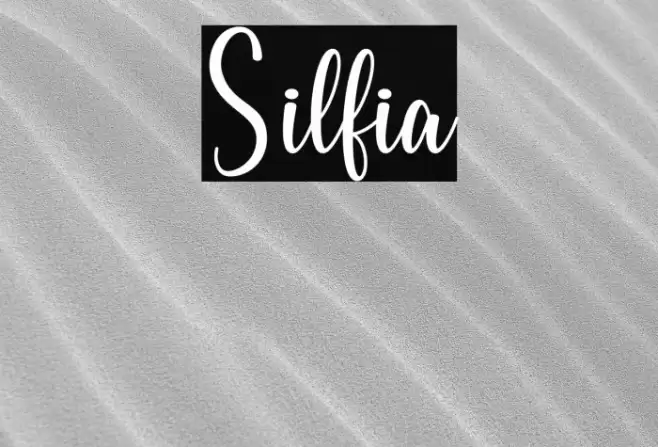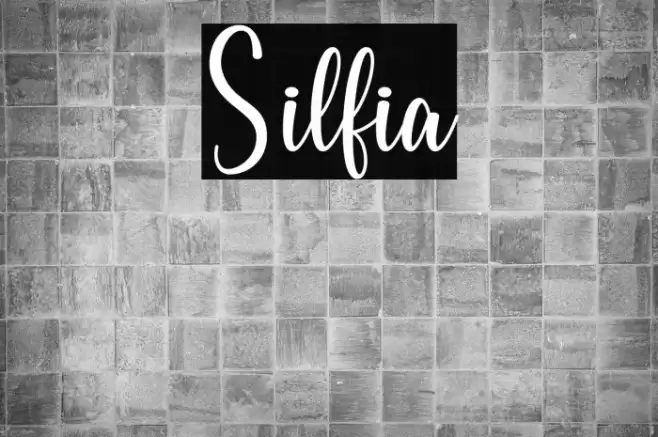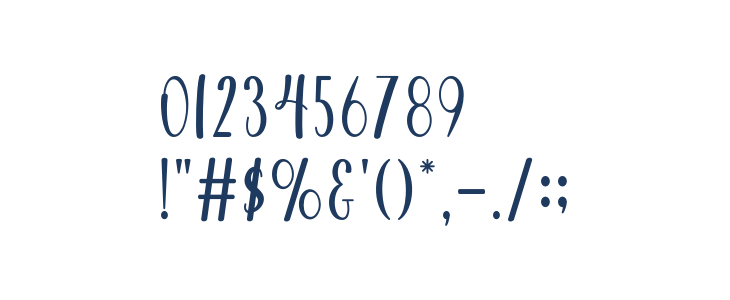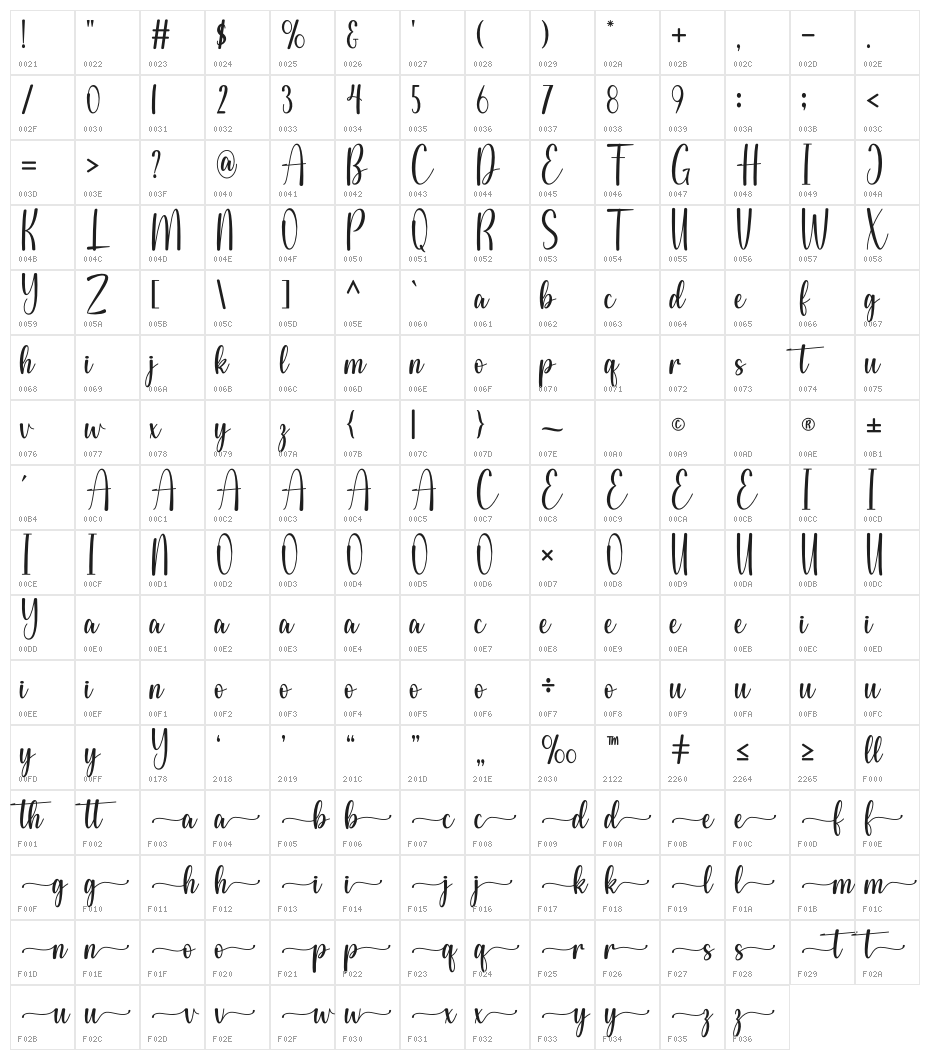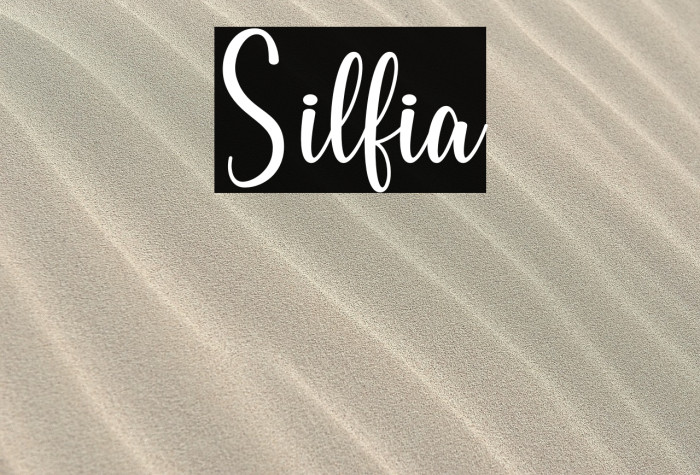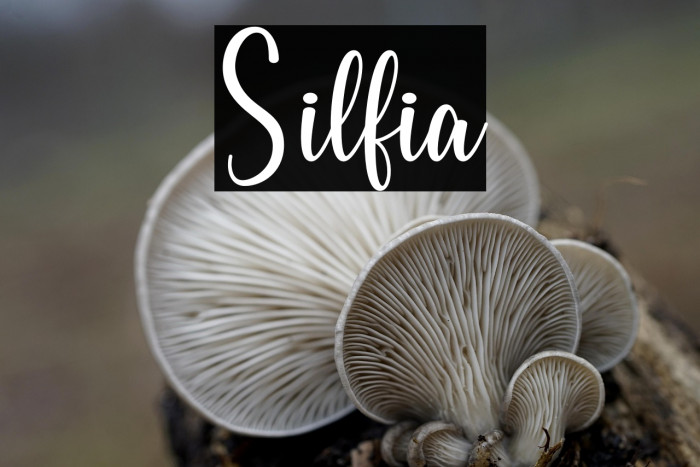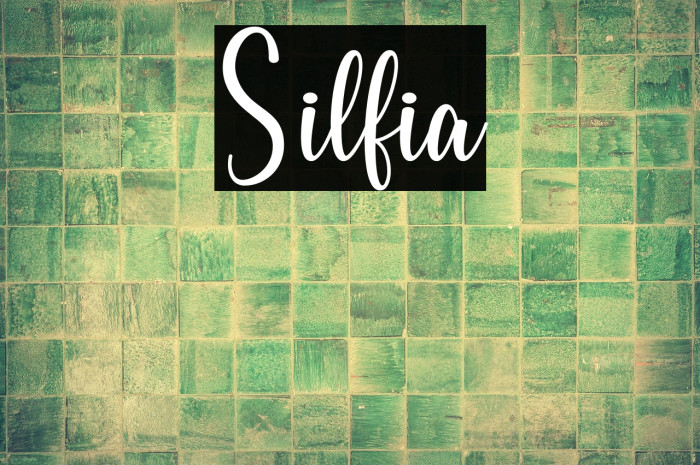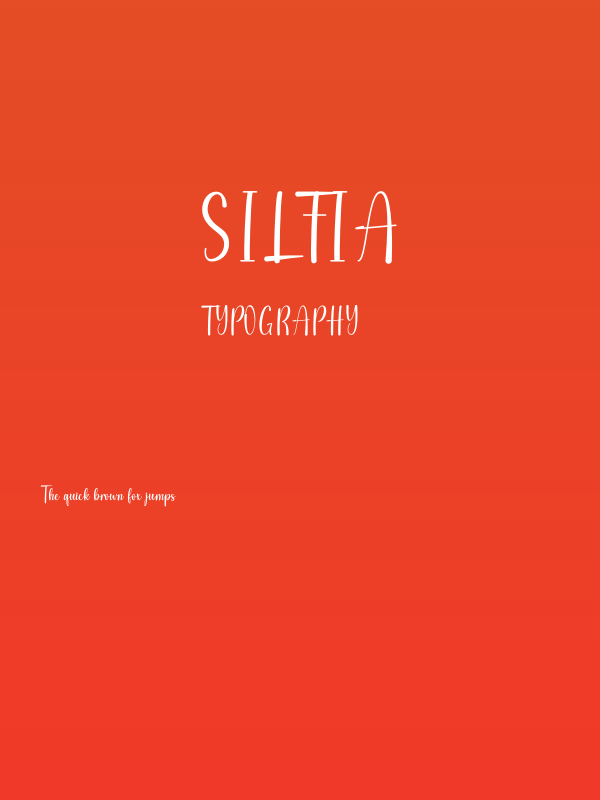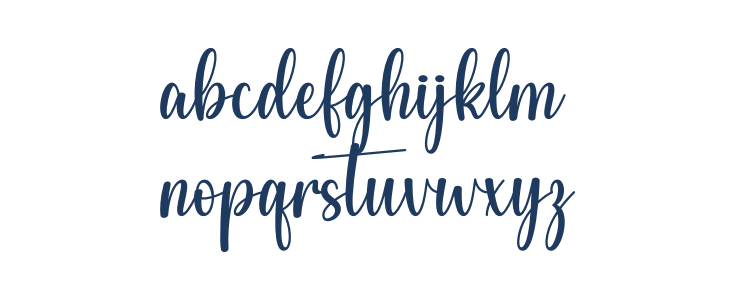
Silfia Font
Silfia Description
This font features a playful and modern handwritten style with a casual elegance. The uppercase letters are tall and slender, with a slight slant that adds a dynamic feel. The lowercase letters are more rounded and fluid, providing a nice contrast to the uppercase. The numbers are consistent with the overall style, maintaining the same playful and informal vibe. Special characters are creatively designed, adding to the font's versatility. The strokes vary in thickness, giving it a lively and energetic appearance. This font is perfect for projects that require a personal touch or a creative flair.
A playful, modern handwritten font with dynamic slant and varied stroke thickness from Regular fonts.